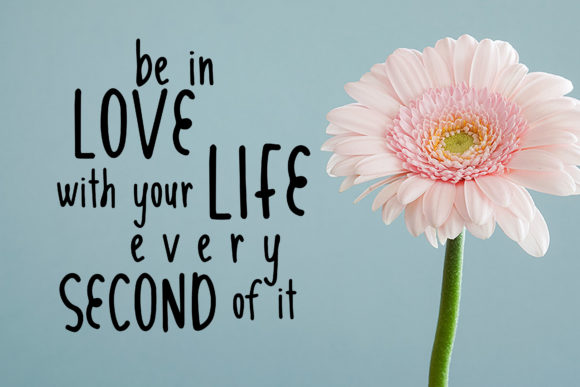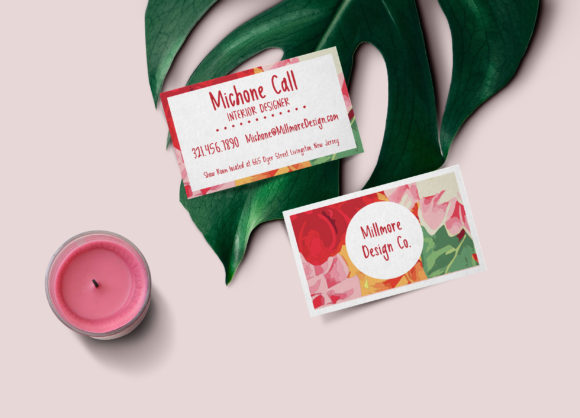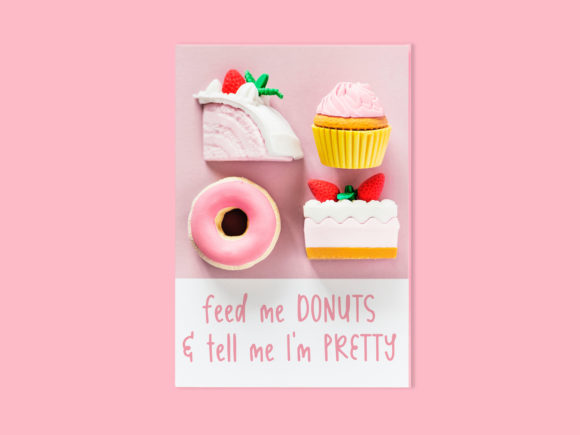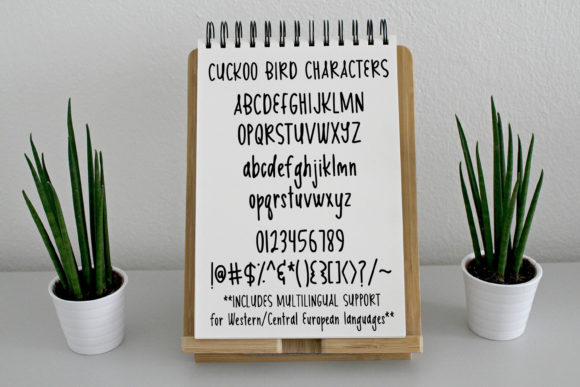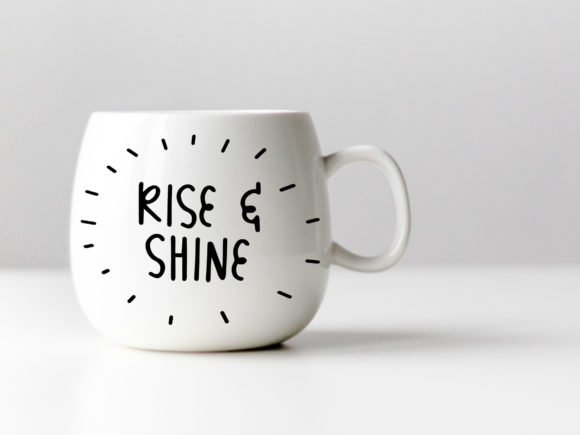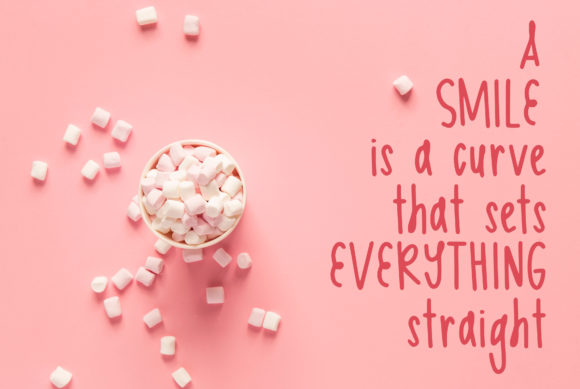
Cuckoo Bird Font: Adding a Touch of Whimsy to Your Designs
Are you tired of using the same old fonts in your design projects? Look no further than the Cuckoo Bird Font, a simple yet fun handwritten font that’s sure to make your designs stand out. With its unique style and playful vibe, this font is perfect for designers and crafters looking to add a touch of whimsy to their work.
What is Cuckoo Bird Font?
Cuckoo Bird Font is a handwritten font that’s inspired by the charming and quirky nature of the cuckoo bird. It’s a one-of-a-kind font that’s been carefully crafted to bring a sense of fun and playfulness to your designs. Whether you’re working on a branding project, a craft project, or just want to add some personality to your digital designs, this font is sure to impress.
Key Features of Cuckoo Bird Font
- Unique Style: Cuckoo Bird Font has a distinctive style that’s unlike any other font out there. Its handwritten charm and quirky flair make it perfect for designers who want to add a personal touch to their work.
- Easy to Read: Despite its playful nature, Cuckoo Bird Font is surprisingly easy to read, making it perfect for use in a variety of design projects, from logos and branding to crafts and digital designs.
- Versatile: This font is incredibly versatile and can be used in a wide range of design projects, from formal to informal, and from digital to print.
- Fun to Use: Cuckoo Bird Font is a joy to use, and its playful nature is sure to inspire your creativity and bring a smile to your face.
Who is Cuckoo Bird Font for?
Cuckoo Bird Font is perfect for a wide range of designers and crafters, including:
- Graphic Designers: If you’re a graphic designer looking for a unique font to add to your collection, Cuckoo Bird Font is a great choice.
- Crafters: If you’re a crafter who loves to make handmade cards, gift tags, and other paper crafts, this font is perfect for adding a personal touch to your projects.
- Small Business Owners: If you’re a small business owner looking for a fun and playful font to use in your branding, Cuckoo Bird Font is a great option.
- Digital Designers: If you’re a digital designer who works on websites, social media graphics, and other digital projects, this font is a great addition to your toolkit.
How to Use Cuckoo Bird Font
Using Cuckoo Bird Font is easy! Here are a few tips to get you started:
- Pair it with Other Fonts: Cuckoo Bird Font pairs well with other fonts, so don’t be afraid to experiment with different combinations.
- Use it for Headings: This font is perfect for use in headings and titles, where its playful nature can really shine.
- Add it to Your Branding: If you’re looking for a unique font to use in your branding, Cuckoo Bird Font is a great choice.
- Experiment with Colors: This font looks great in a variety of colors, so don’t be afraid to experiment and find the perfect hue for your design.
Cuckoo Bird Font is a simple yet fun handwritten font that’s perfect for designers and crafters looking to add a touch of whimsy to their work. With its unique style, easy readability, and versatility, this font is sure to become a favorite in your collection. So why not give it a try and see how it can elevate your designs?
Get Inspired by Cuckoo Bird Font
Here are a few ideas to get you started:
- Create a Playful Logo: Use Cuckoo Bird Font to create a playful logo for your business or brand.
- Make a Handmade Card: Add a personal touch to your handmade cards and gift tags with this charming font.
- Design a Fun Website: Use Cuckoo Bird Font to add a playful touch to your website or social media graphics.
Whatever your design project, Cuckoo Bird Font is sure to inspire your creativity and bring a smile to your face. So why not give it a try today and see the difference it can make?